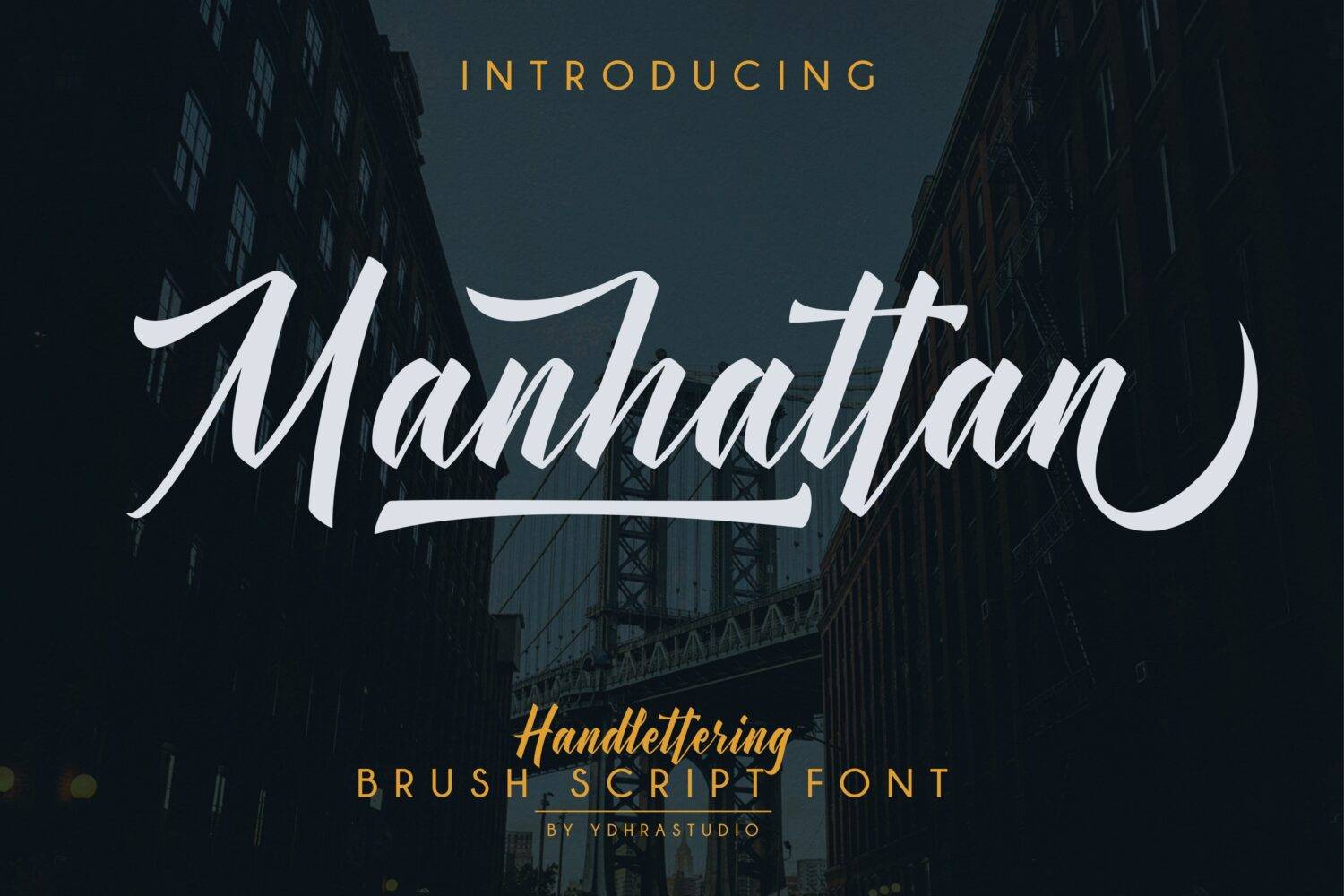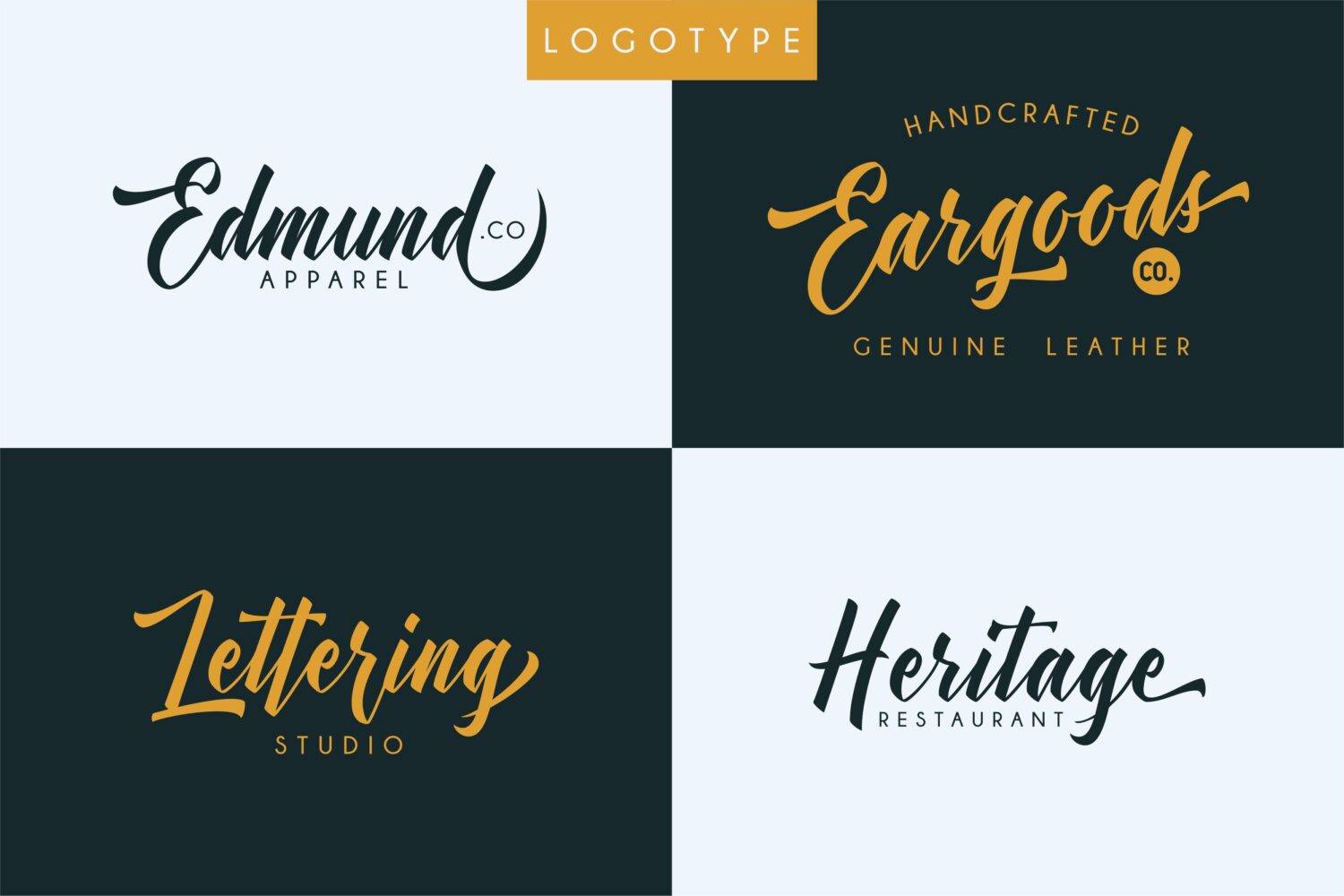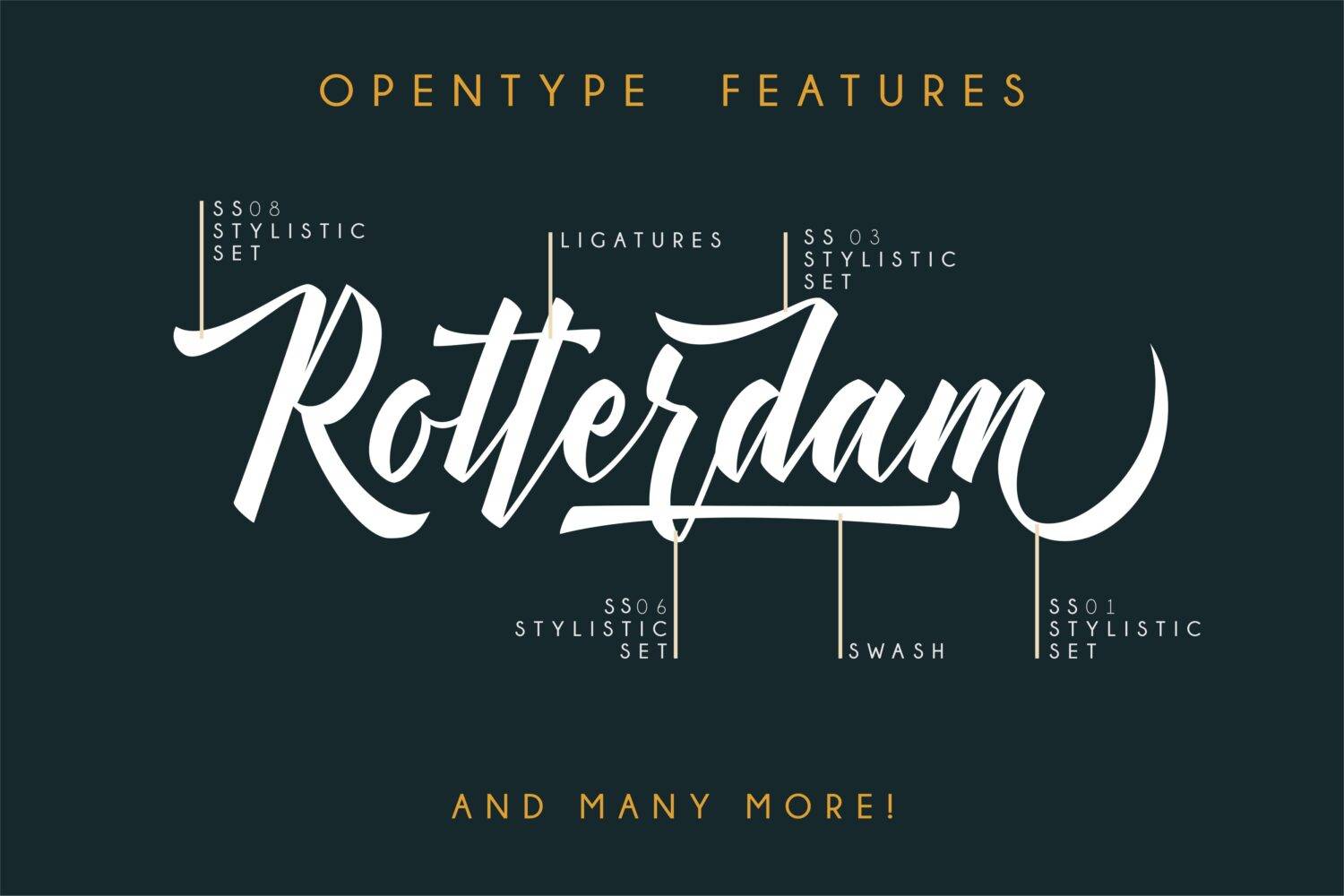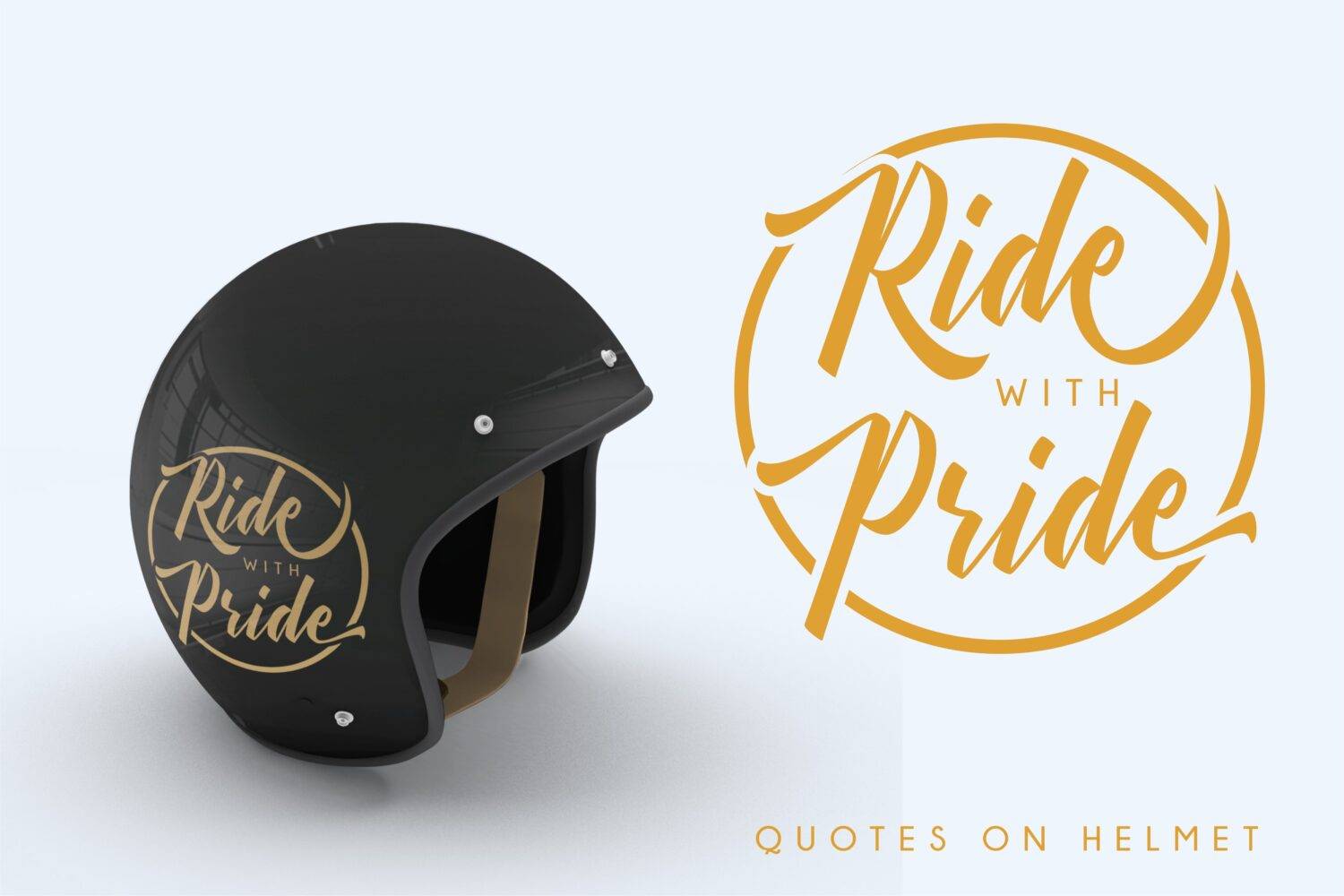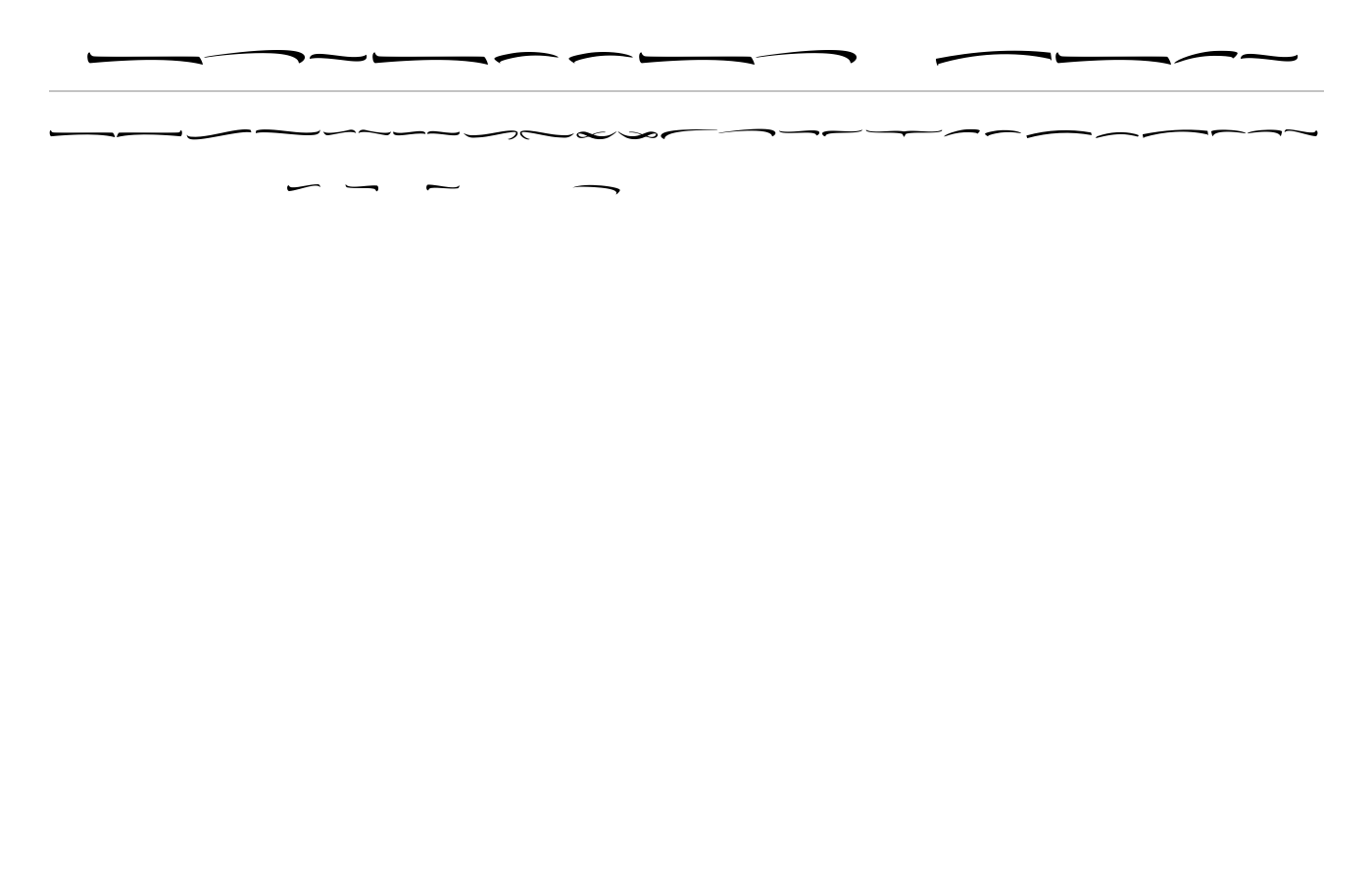
Manhattan Brush is a bold, expressive script font that captures the dynamic and organic feel of hand-painted brush strokes. Its uneven, fluid lines and high contrast between thick and thin strokes create a lively and artistic vibe, making it perfect for creative branding, posters, and headlines that need a personal, energetic touch. This font works well where a modern, playful, and handcrafted style is desired to stand out with personality and flair.
Manhattan Brush Font
About Manhattan Brush Font
| Font family | Manhattan Brush Font |
| Designer | Yudha Rahmat Ageng |